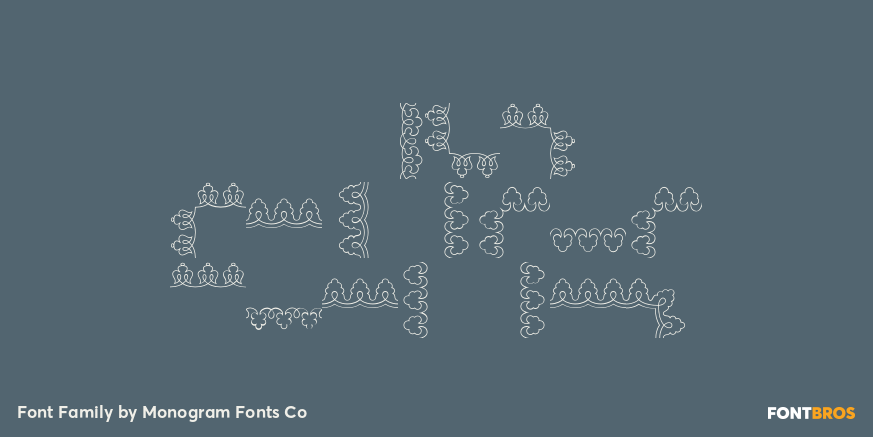
MFC Arteaga Borders
About MFC Arteaga Borders
The inspiration source for Arteaga Borders Three is a collection of the embroidery and beading patterns from a vintage embroidery patterns catalog dating back to 1865. The original collection of patterned sides has been expounded upon to create matching…